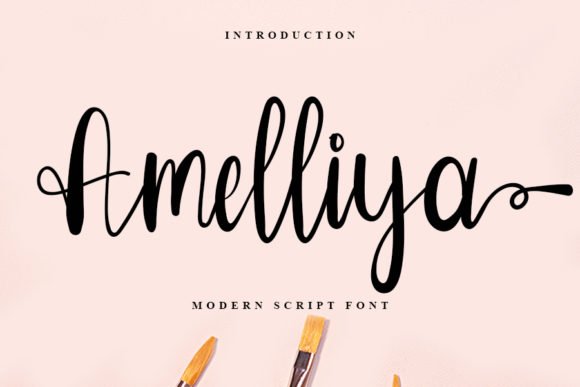
The Perfect Blend of Romance and Elegance
As a designer, there’s nothing quite like the thrill of discovering a new font that sparks creativity and inspires new ideas. For me, that moment came when I stumbled upon the Amelliya Font – a romantic and sweet calligraphy typeface that seems to dance along the baseline. Its casual, yet elegant touch is the perfect blend of whimsy and sophistication.
Whether you’re creating a logo for a new business, designing a wedding invitation, or crafting a beautiful poster, the Amelliya Font is an invaluable asset. Its versatility and charm make it a valuable addition to any designer’s toolkit, and its use is only limited by your imagination. With the Amelliya Font, you can add a touch of romance and elegance to any project, making it a must-have for designers who crave unique and memorable designs.
Amelliya Font Key Features
- Font Family: Amelliya Font offers a range of styles including Regular, Bold, Italic, and Bold Italic.
- Character Count: With over 250 characters, including uppercase and lowercase letters, numbers, and punctuation marks, Amelliya Font provides a comprehensive character set.
- Unique Characteristics: Amelliya Font features a unique blend of modern and traditional elements, making it perfect for creating visually striking and elegant designs.
Review: Amelliya Font
I recently had the chance to work with the Amelliya Font, and I have to say it’s a unique and intriguing addition to any design project. ✨
Here are some of its strengths:
- ✨ Elegant and sophisticated feel: Amelliya’s flowing curves and rounded edges give it a touch of sophistication and elegance.
- ✨ Wide range of languages: This font supports over 200 languages, making it a versatile choice for projects that require multilingual support.
- ✨ Beautiful for headings and titles: Amelliya’s bold and striking design makes it perfect for headings and titles, grabbing the reader’s attention.
- ⚠️ Limited font sizes: Amelliya’s design starts to lose its clarity when scaled down to very small font sizes.
- ⚠️ Some characters may not render correctly: Depending on the system or device, some characters may not display correctly, which can be frustrating.
Overall, I’d say Amelliya is a great addition to any designer’s toolkit, especially for projects that require a touch of elegance and sophistication. However, be mindful of its limitations, and make sure to test it thoroughly before using it for critical projects.
Amelliya Font is ideal for creating elegant and sophisticated designs. To get the most out of it, try using it in combination with bold colors and geometric shapes. You can also experiment with different font sizes and styles to create a unique visual hierarchy.
Amelliya Font is perfect for designing wedding invitations, luxury brand logos, and high-end marketing materials. It’s also great for creating elegant headings and titles for presentations and documents.
Carolyna Pro Font is a modern, elegant script font that is designed for use in a variety of design projects, including logos, packaging, and advertising. It has a more refined and sophisticated feel compared to Amelliya Font, making it suitable for high-end designs. However, it can be more challenging to read in smaller font sizes.
Yes, the Amelliya Font family has been specifically designed for digital use, with careful consideration given to screen rendering and legibility at various font sizes and resolutions. It is also optimized for use in mobile and web applications, where clear and readable typography is essential.